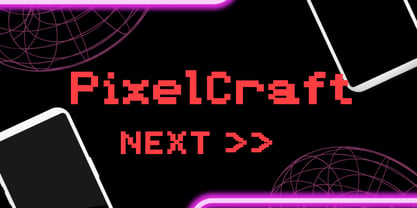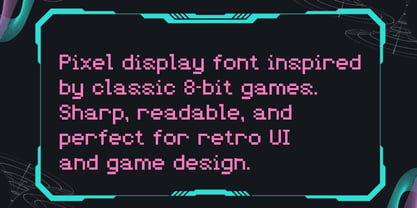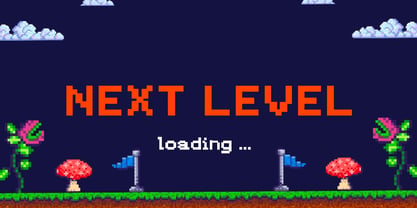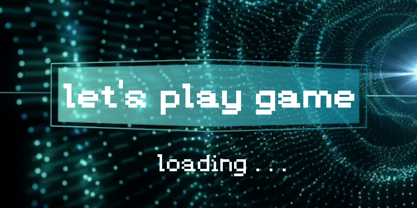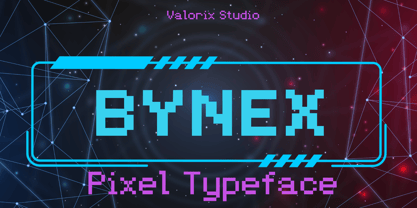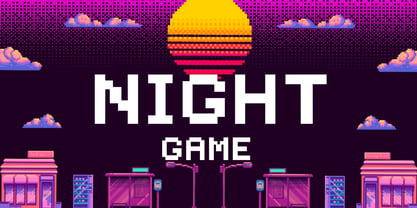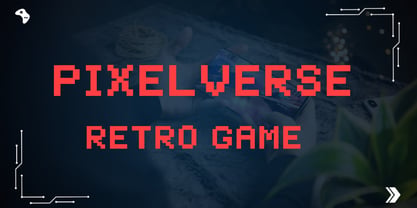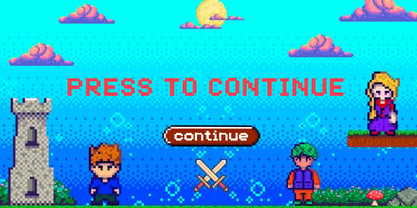
Bynex
A família de fontes Bynex foi desenhada por Erick Rismawan Valorix e publicada pela Valorix Studio. Bynex contém 2 estilos e opções de pacote familiar. Saiba mais sobre esta família
Bynex is a pixel-style display font inspired by classic retro games and early digital screens. Built on a clean grid system, each character delivers sharp edges, solid readability, and a nostalgic digital atmosphere. This font is perfect for game titles, UI elements, posters, logos, pixel art projects, tech branding, and retro-themed designs. While rooted in old-school aesthetics, Bynex is carefully crafted to remain clear and balanced in modern layouts.
Valorix Studio is an independent type foundry specializing in creating display and decorative typefaces with a modern and distinctive character. We craft a wide range of fonts designed to emphasize strong visual identity and creative expression. Each typeface is developed with attention to detail, balance, and aesthetic value—making it an ideal choice for branding, posters, packaging, and other creative projects that demand a bold and unique touch.